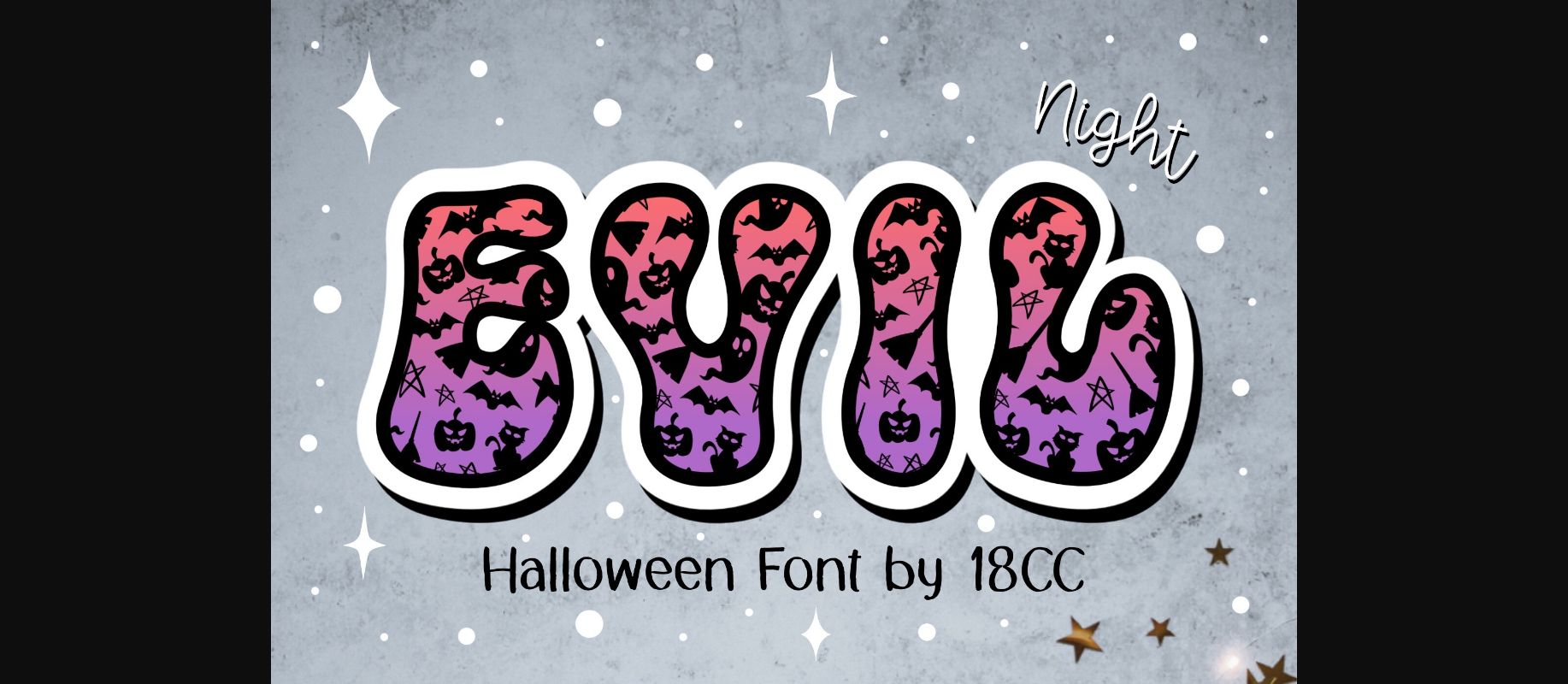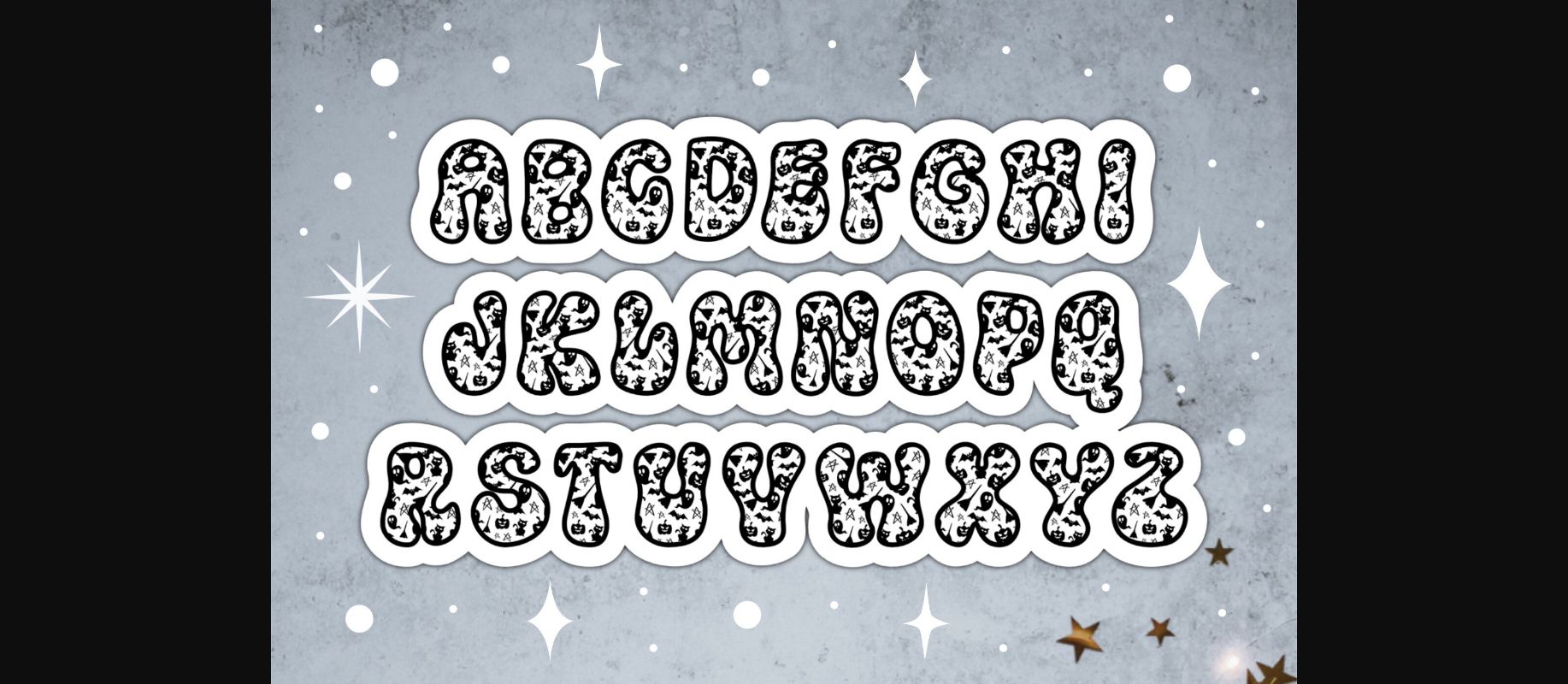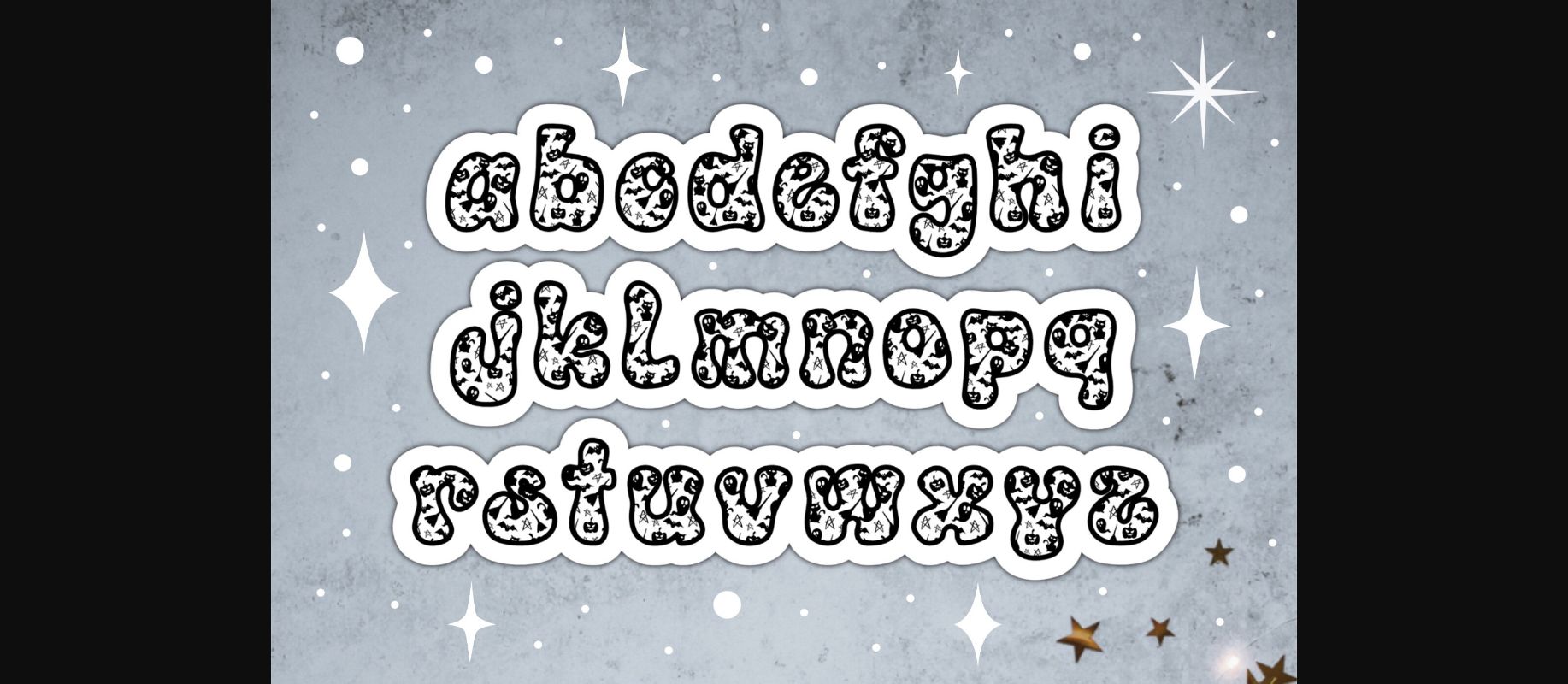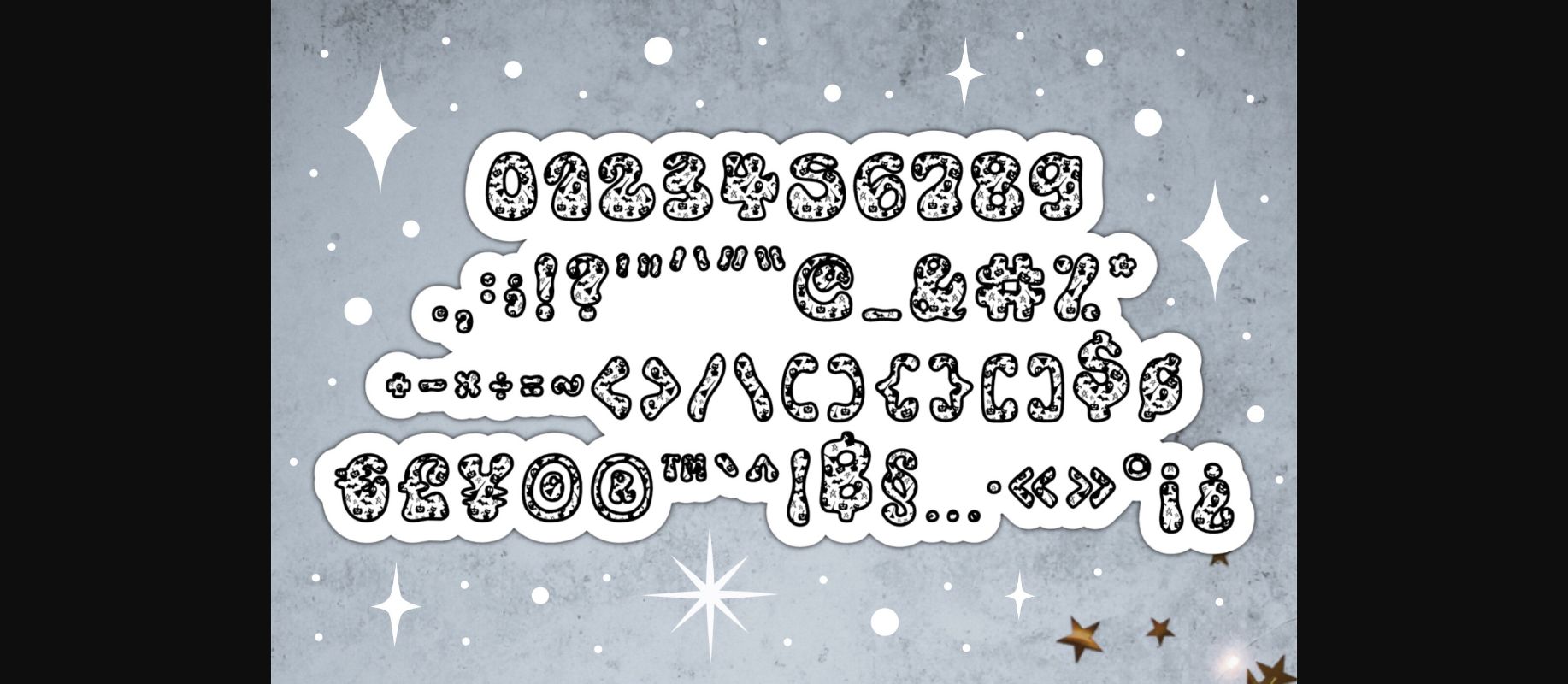
Evil Night Font
About Evil Night Font
Evil Night is a funny halloween theme font. Whimsical and a little bit mysterious, this font is perfect for all your Halloween projects.